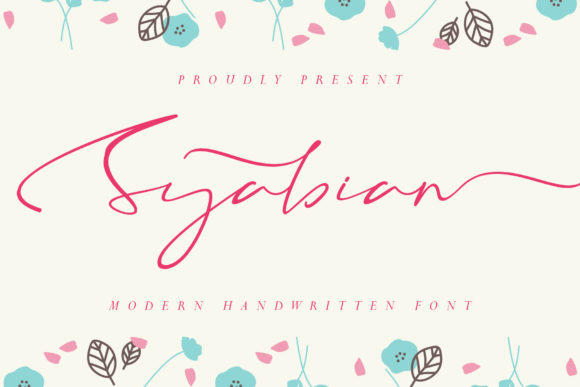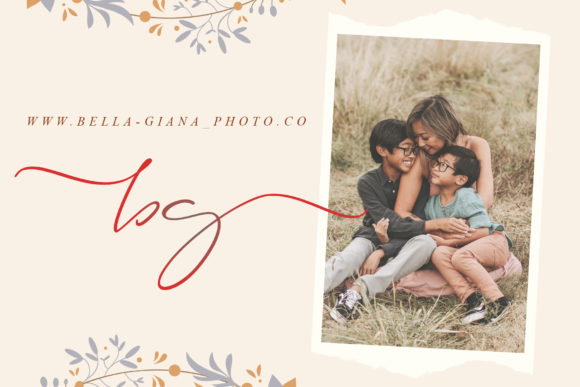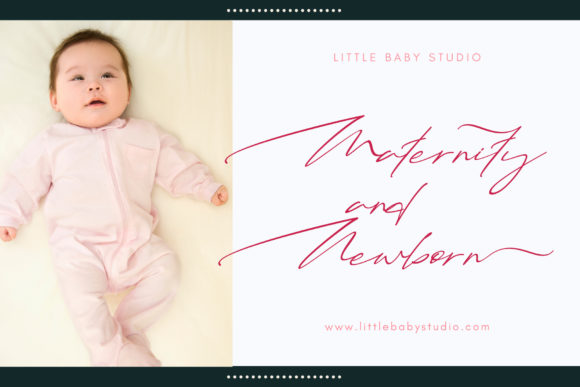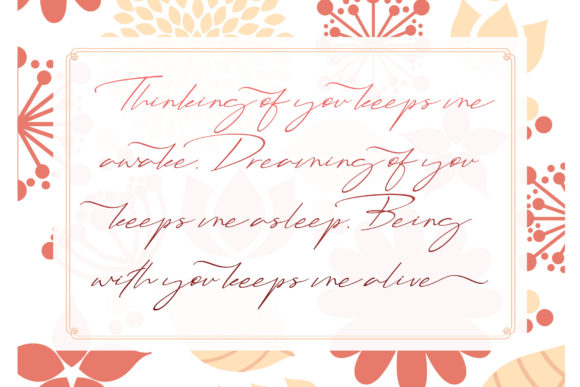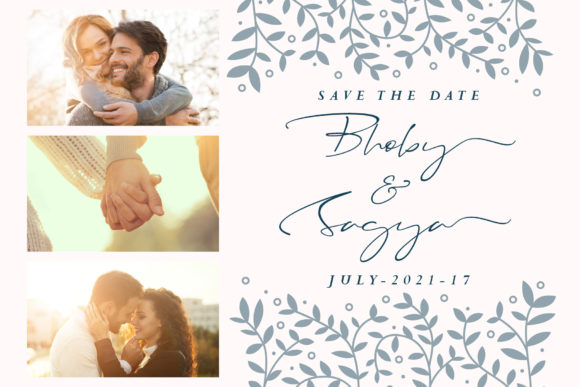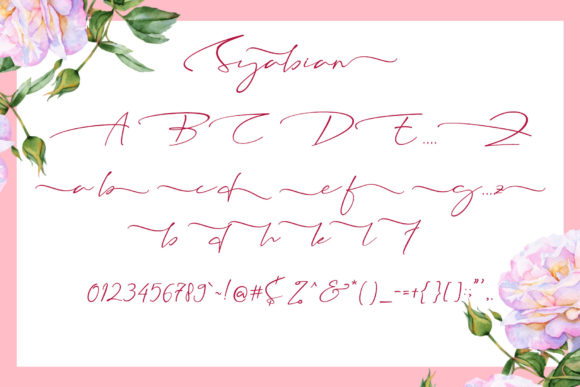
Syabian Font
About Syabian Font
Syabian is a dazzling and timeless handwritten font. It is the best choice for creating eye-catching logos, branding, and quotes. This font is PUA encoded which means you can access all of the glyphs and swashes with ease!